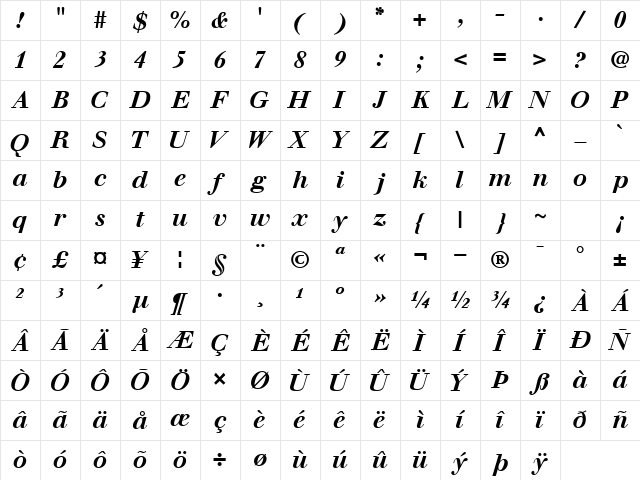
WalbaumSSK Bold Italic
WalbaumSSK Family
WalbaumSSK Bold Italic
WalbaumSSK Bold Italic Font Preview
WalbaumSSK Bold Italic Uppercase Preview
WalbaumSSK Bold Italic Lowercase Preview
WalbaumSSK Bold Italic Numeric Preview
WalbaumSSK Bold Italic Character Map
Complete WalbaumSSK Bold Italic glyph index. Displaying only characters natively supported by WalbaumSSK Bold Italic font.
WalbaumSSK Bold Italic Character Map
Design Context for WalbaumSSK
WalbaumSSK is a composed and adaptable typeface that performs quietly and consistently across a wide range of design contexts. The slanted form adds forward momentum and visual energy. Its bold stroke weight gives it real presence on the page.
Pro Tip: Use WalbaumSSK for emphasis, pull quotes, and subheadings where its slanted energy can add rhythm to the layout.